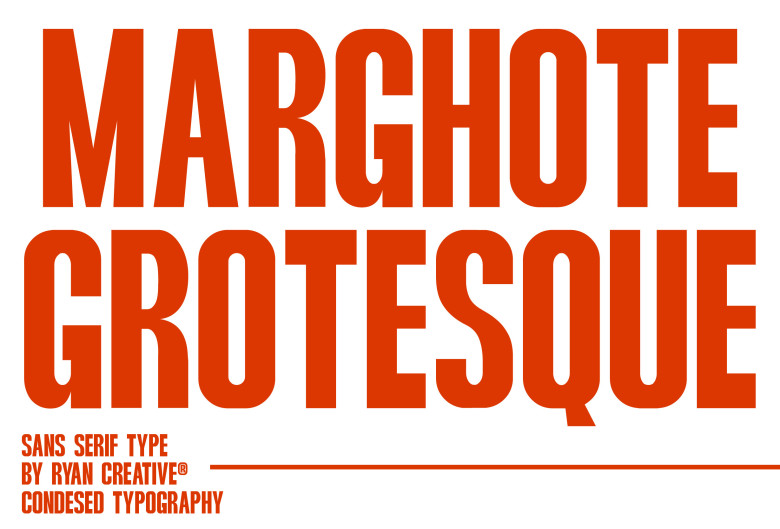
Marghote Font
Marghote is an elegant sans serif font featuring simple lines and an eye-catching grotesk appearance, bold and condensed for easy reading. Ideal for contemporary designs as well as modern typographies such as posters, fashion magazine covers, typography projects or any digital media, Marghote can be utilized in contemporary and modern designs to bring visual elegance.
Marghote Sans Serif Font